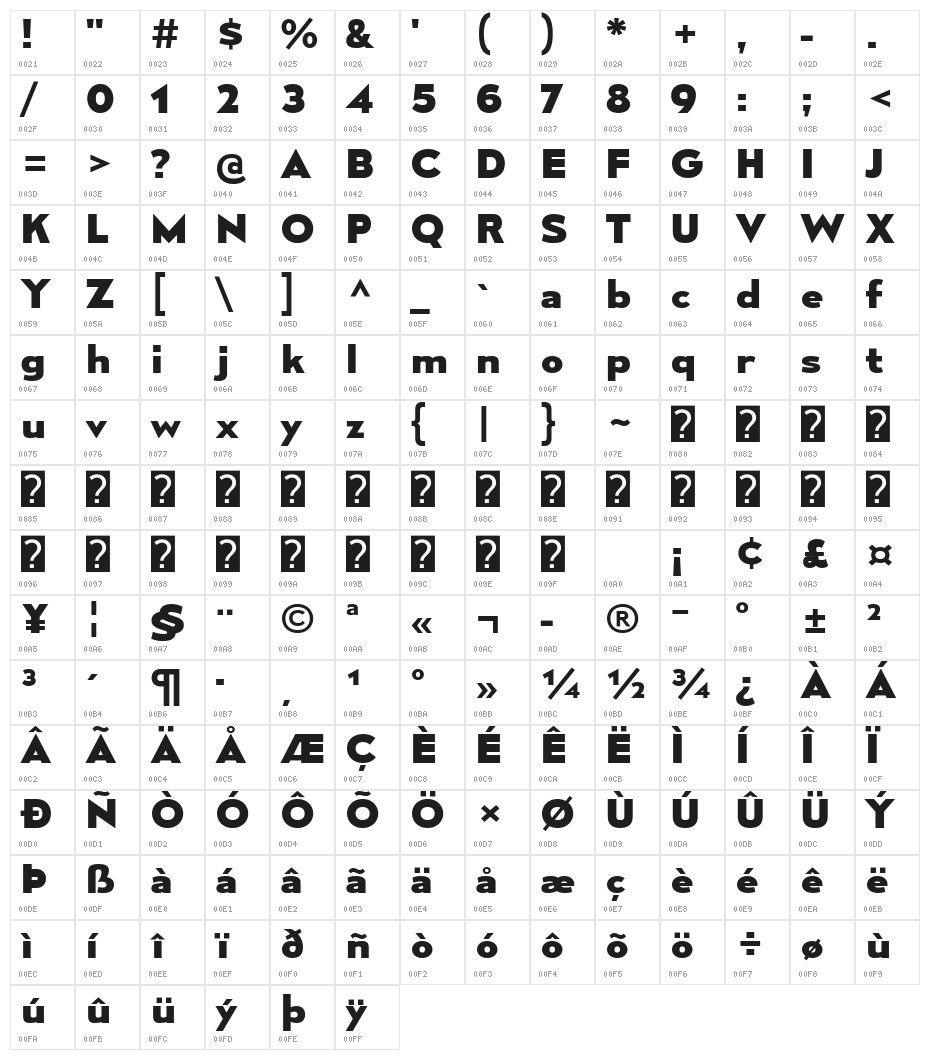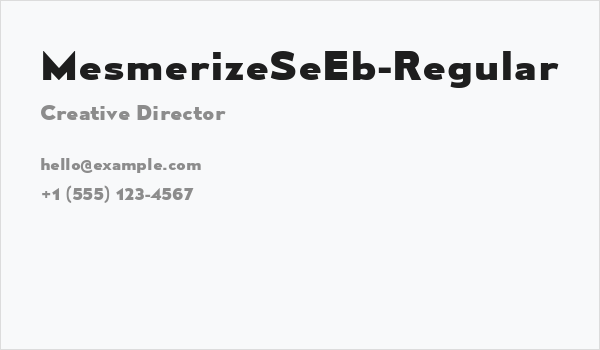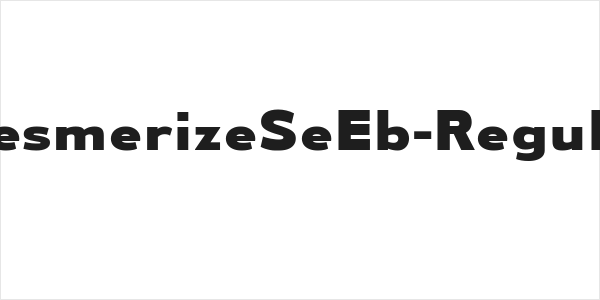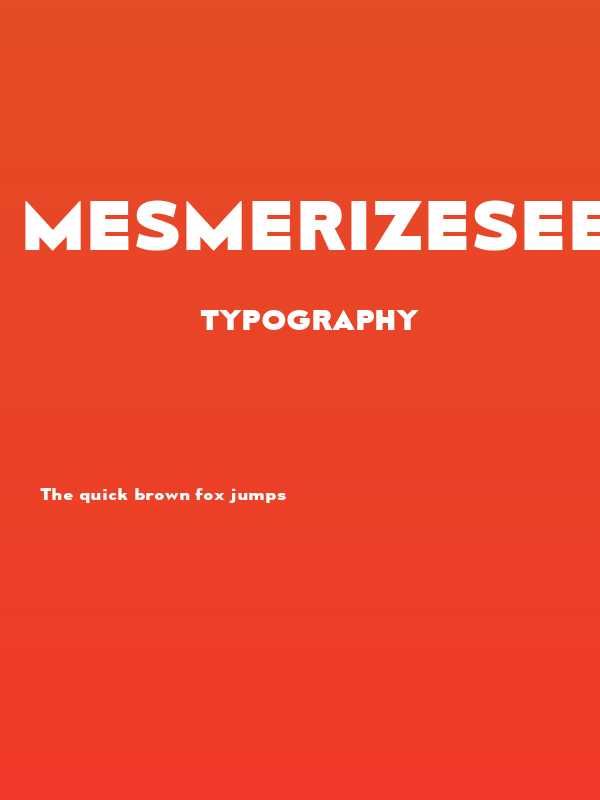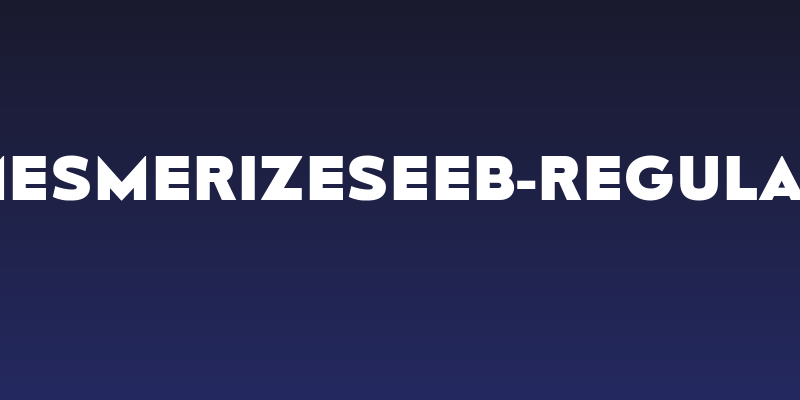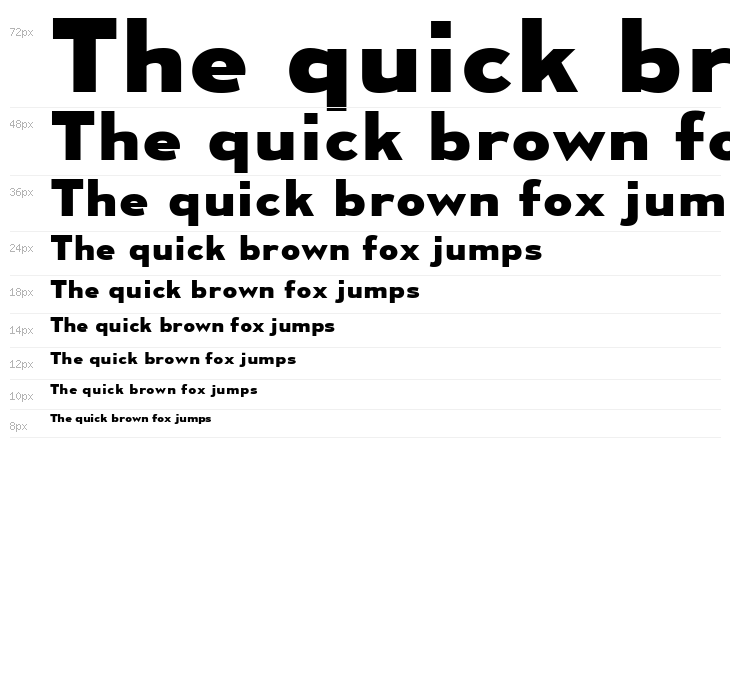
MesmerizeSeEb-Regular Font
MesmerizeSeEb-Regular Description
This font exhibits a bold and modern aesthetic, characterized by its strong geometric shapes and clean lines. The uppercase letters are robust and commanding, while the lowercase letters maintain a consistent weight, providing a harmonious balance. The numerals are equally bold, ensuring readability and impact. Special characters are designed with the same attention to detail, making them suitable for various applications. The overall design is sleek and contemporary, ideal for making a statement in any project.
| Proposed Projects | Ideal for branding, headlines, posters, and digital media where a strong visual impact is desired. |